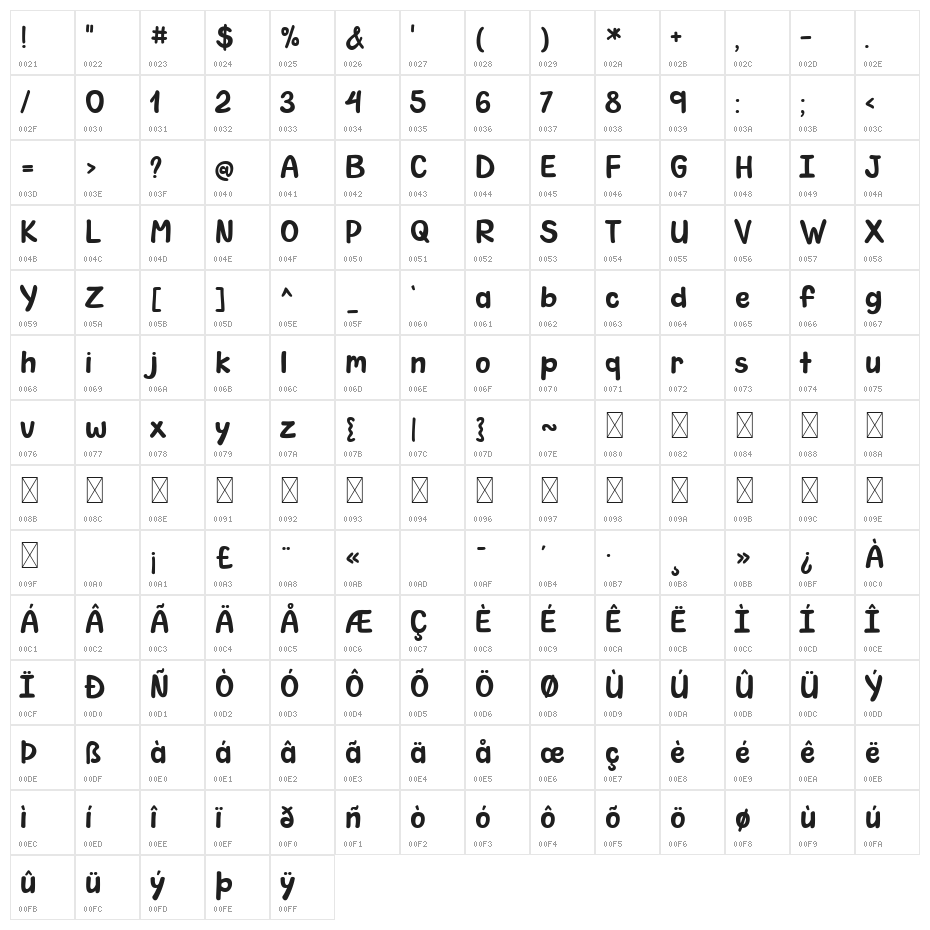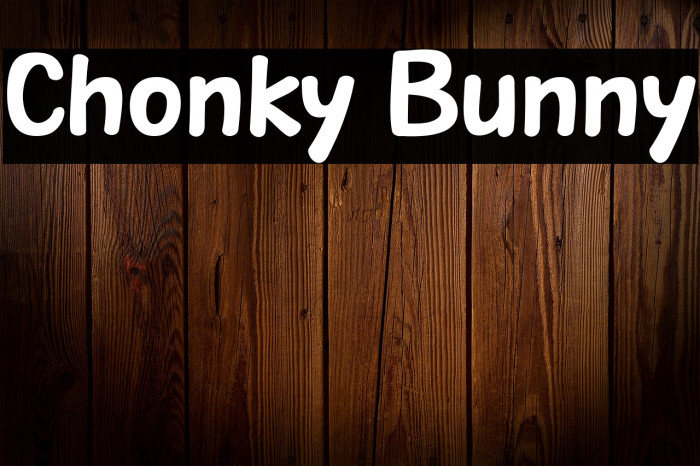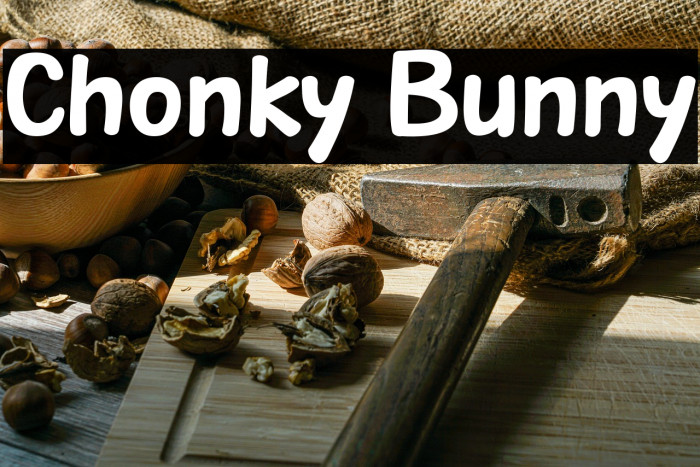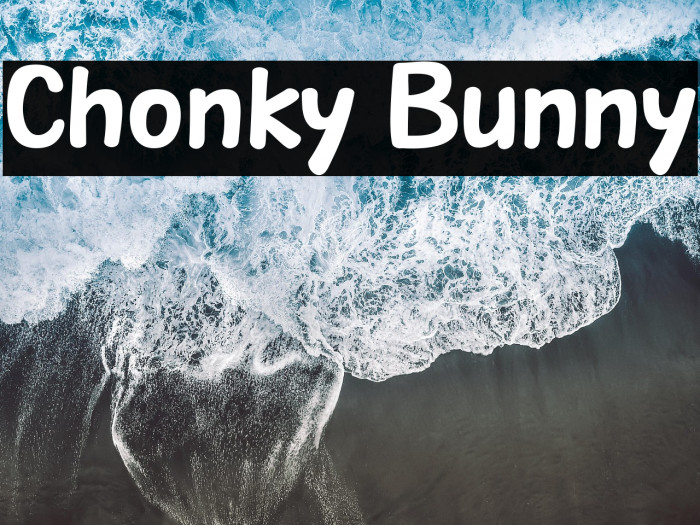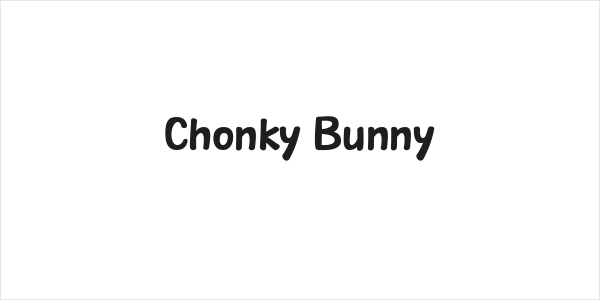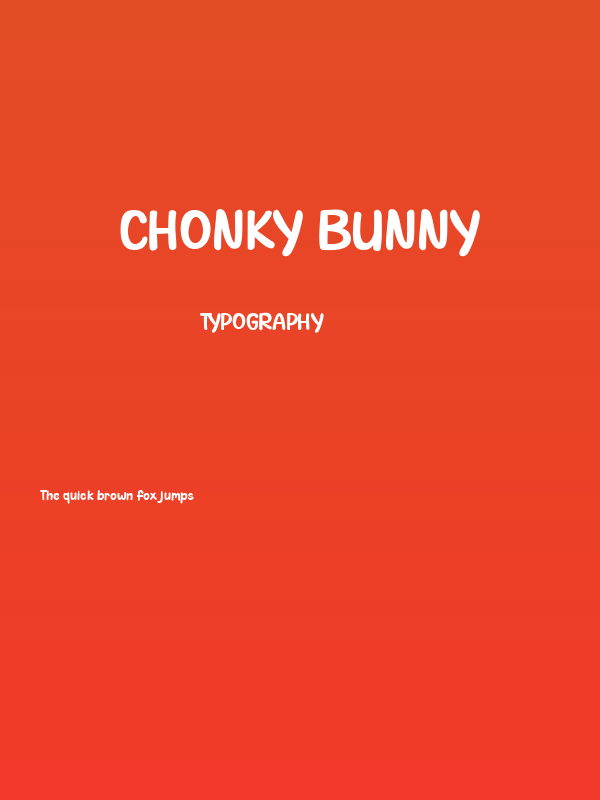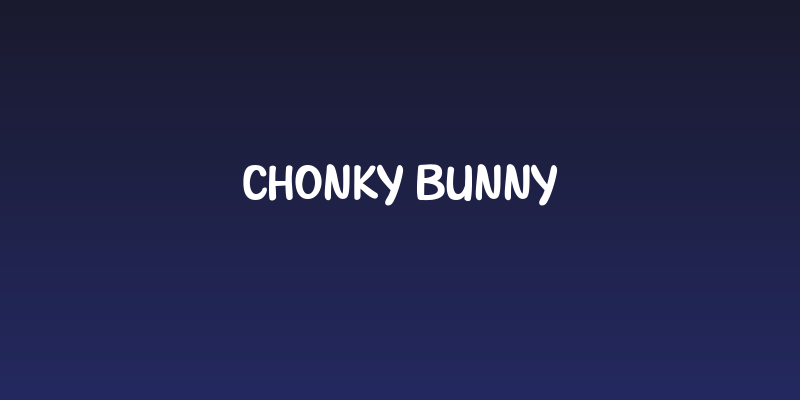
Chonky Bunny Font
Chonky Bunny Description
This playful and bold font features rounded edges and a chunky appearance, giving it a friendly and approachable feel. The characters are evenly spaced, with a consistent stroke width that maintains readability while adding a touch of whimsy. Its informal style makes it ideal for projects that require a fun and engaging look. The font includes a full set of uppercase and lowercase letters, numbers, and a variety of special characters, ensuring versatility in design applications.
| Proposed Projects | Ideal for children's books, playful branding, greeting cards, and social media graphics. |